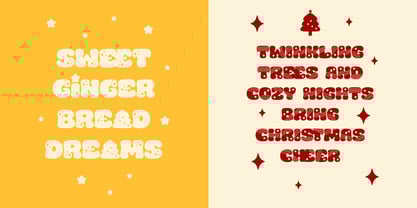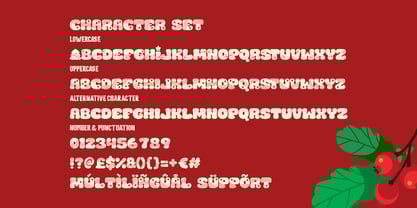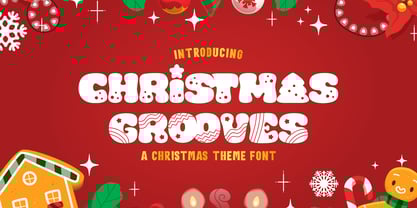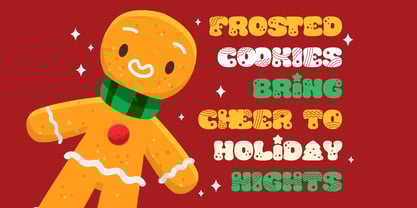
Christmas Grooves
by Shanaf
The Christmas Grooves Font Family was designed by Yesie Erma Yunita and published by Shanaf. Christmas Grooves contains 1 styles. More about this family
Bring your holiday spirit alive with Christmas Grooves, an enchanting and festive display font inspired by the whimsical charm of gingerbread cookies and joyful Christmas celebrations. Featuring playful, rounded letterforms with creatively festive patterns, Christmas Grooves perfectly captures the essence of holiday cheer and nostalgia. The characters are intricately detailed, incorporating motifs such as stripes, dots, stars, and zig-zags, reflecting the delightful decorations found on freshly baked gingerbread treats. This font stands out beautifully on vibrant backgrounds, enhancing the cheerful and celebratory vibe of your designs.
Ideal for a wide array of creative projects, Christmas Grooves is exceptionally versatile, making it the perfect choice for logos, branding materials, greeting cards, holiday packaging, and festive event invitations. Its friendly and lively style also makes it suitable for crafting projects, eye-catching posters, engaging book covers, whimsical stickers, and playful magazine layouts. Celebrate the warmth and joy of Christmas with a font designed to make every message memorable and delightful. With comprehensive multilingual support and playful alternative characters, Christmas Grooves ensures that your designs communicate joy and holiday excitement to audiences everywhere.
Designers: Yesie Erma Yunita
Foundry: Shanaf